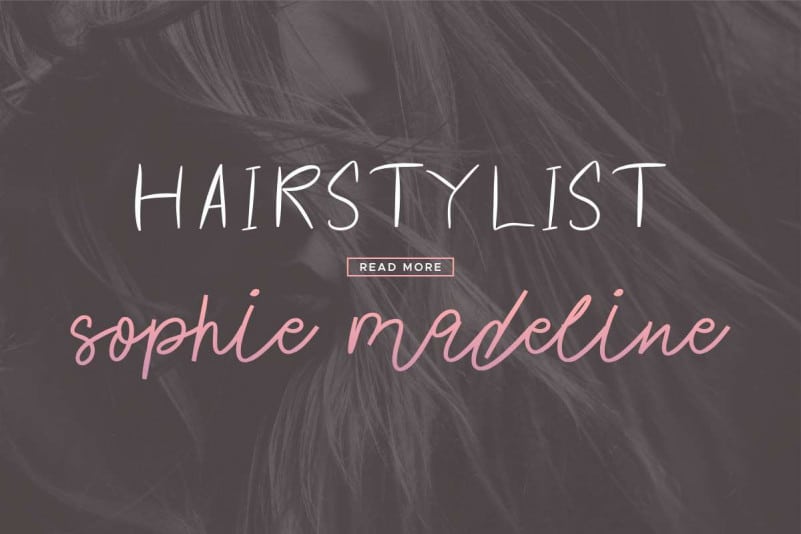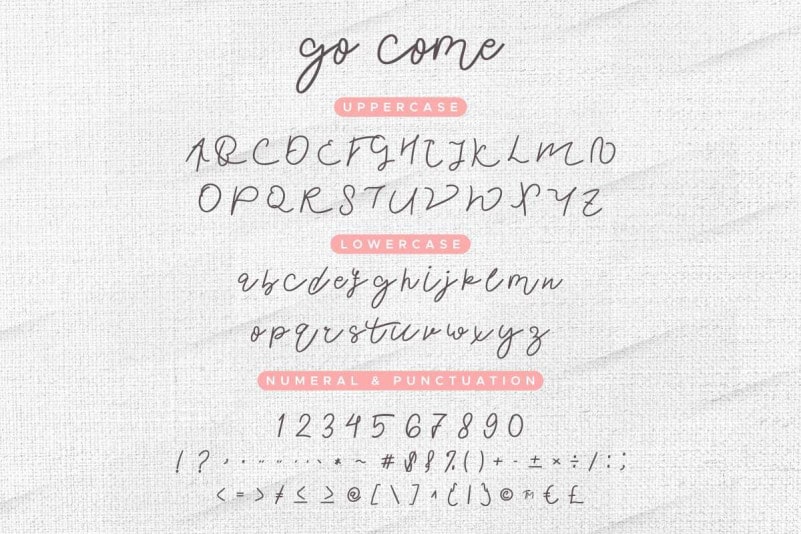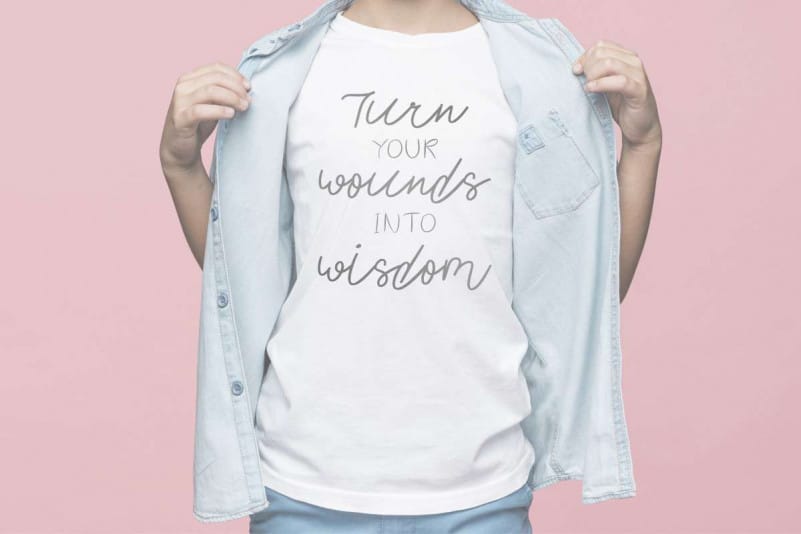
Go Come Font Duo
Go Come Font Duo is an exclusive font family with two different styles. This typeface has a stunning characters set, perfectly managed with well spaced and kerning. The theme style of this font will elegant, vintage, stylish, sophisticated and classic brush calligraphic style.
Go Come Font Duo will be great for any projects including : branding, logo, stationery, business card, signage, flyer, brochure etc. Almost all industries will be match for this typeface: wedding, events, real estate, architect, law firm, florist, gardening, makeup artist, travel, hotel, musician etc